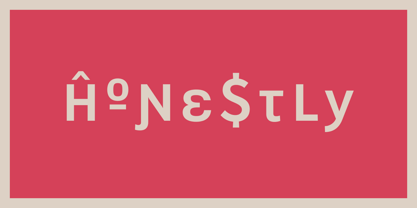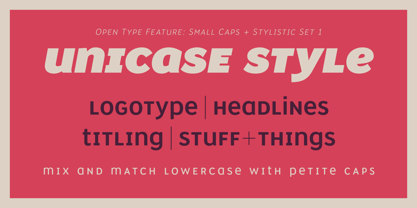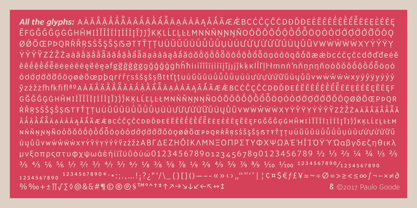
Banjax™
Banjax is a humanist sans serif typeface, designed to be highly versatile and efficient in both print and digital environments. The extreme weights are perfect for display purposes, with the central core weights ideal for body copy. While Banjax has a branding focus, it would be suitable for pretty much any text application in any Latin language. See more detailed examples here. Distinguishing features include a large x-height, short descenders, distinctive asymmetrical contrast, angled terminals, squared dots and punctuation, and maybe a little flair here and there to enhance this typeface’s personality. Overall, Banjax makes for a pleasant reading experience with enough nuances to make it an ideal choice for branding purposes.
Key features:
- 9 weights in Roman and Italic
- Small Caps, Petite Caps and 3 Alternates
- Latin Extended and Basic Greek glyphs
- 1100 glyphs per font.
Concepteurs: Paulo Goode
Fonderie d'origine: Paulo Goode